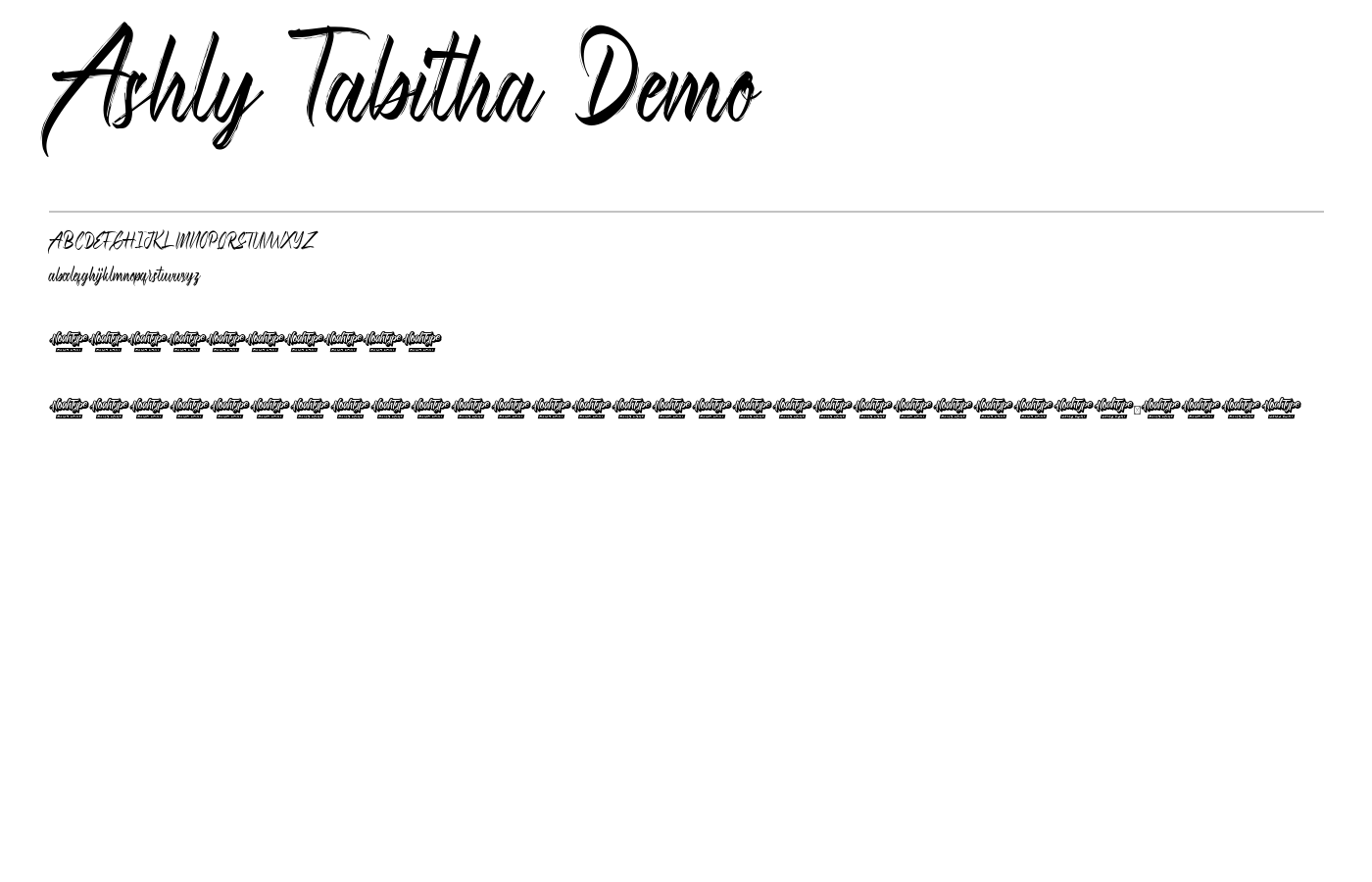
Ashly Tabitha Demo is a stylish script font that features a flowing, handwritten look with medium contrast and elegant, brush-like strokes. Its natural, slightly casual feel makes it ideal for creative branding, invitations, and artistic projects where a personal, approachable touch is desired. This font works beautifully for headlines, logos, and decorative text that aims to convey warmth and individuality.
Ashly Tabitha Demo Font
About Ashly Tabitha Demo Font
| Font family | Ashly Tabitha Demo Font |
| Designer | Widiyanti & Sarah SP |